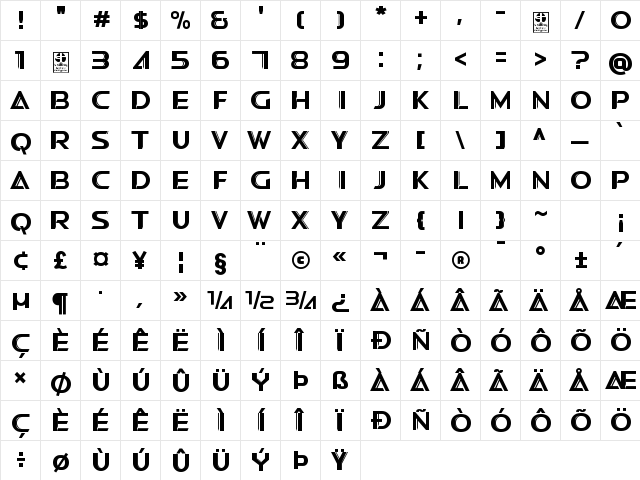
Swera Demo Shadowed Regular
Design Context for Swera Demo Shadowed Typeface
Swera Demo Shadowed is built around its visual character rather than neutral utility — its distinctive forms are designed to make an impression at display sizes.
Font Pairing: Pair with a clean neutral sans-serif for body copy to let Swera Demo Shadowed's character lead without overwhelming the composition.
Pro Tip: Treat Swera Demo Shadowed as the centrepiece of your typographic hierarchy. One strong heading set in a decorative face can carry an entire layout.